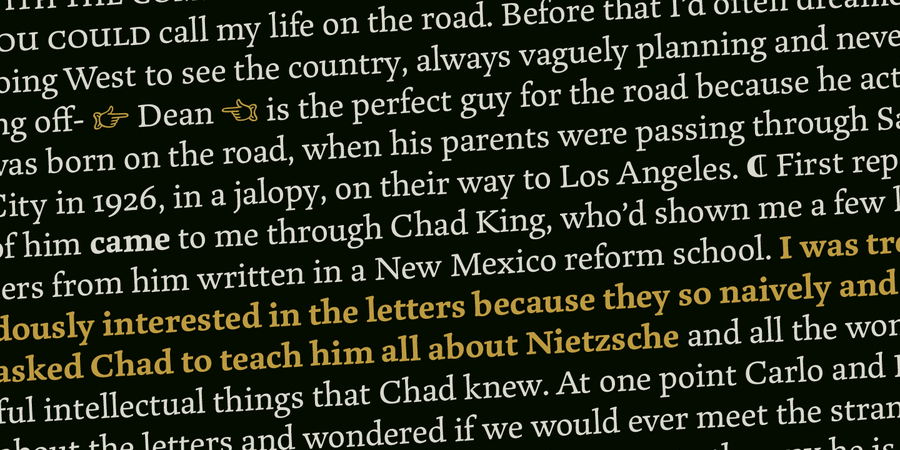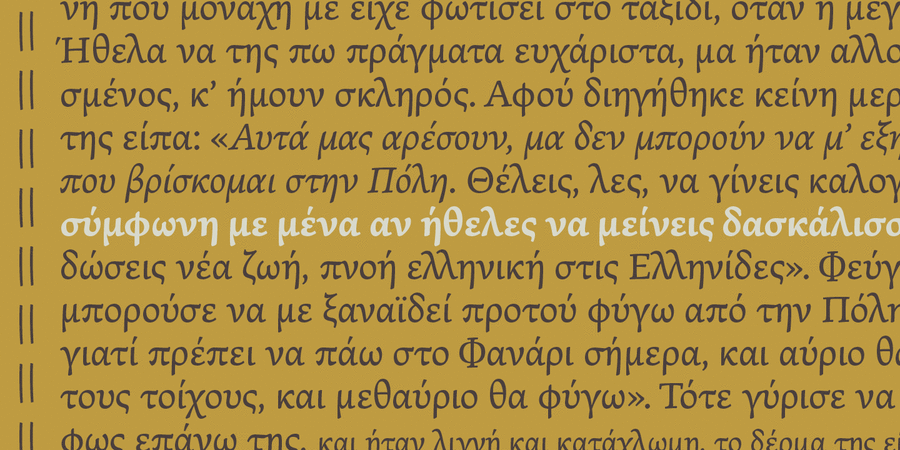
About Marco CYRMarco is a lively text face, with an informal touch, inspired by 15th century Italian letter-forms with strong calligraphic traces and intended to be used primarily in continuous and intensive reading conditions. Marco is full of features required for high-quality book typography, including: strong language-support in extended Latin and Cyrillic, a multitude of swashes in the italic styles of Latin and Cyrillic, stylistic alternates to obtain the best possible solutions and other typographic niceties.
Inspiration for Marco goes back to Italian humanist typography such as those of Nicholas Jenson or Aldus Manutius, and general influences from calligraphy. As a result, Marco has matured into a personal and unique text face where its lively and somewhat informal style is an ideal counterpart to its careful and ingenious crafting. Typefece was designed by Toshi Omagari in 2015.